Custom fonts are a great way to make your brand stand out from the crowd and create a unique identity that is instantly recognizable.
Modifying an existing font involves starting with a pre-existing typeface as a foundation. This could be a font that is already commercially available or one that has been designed by TSfonts type studio.
Creating a new font from scratch involves starting with a blank canvas and designing each character and glyph individually. Designers have full creative control over every aspect of the font, from letterforms to spacing and kerning.
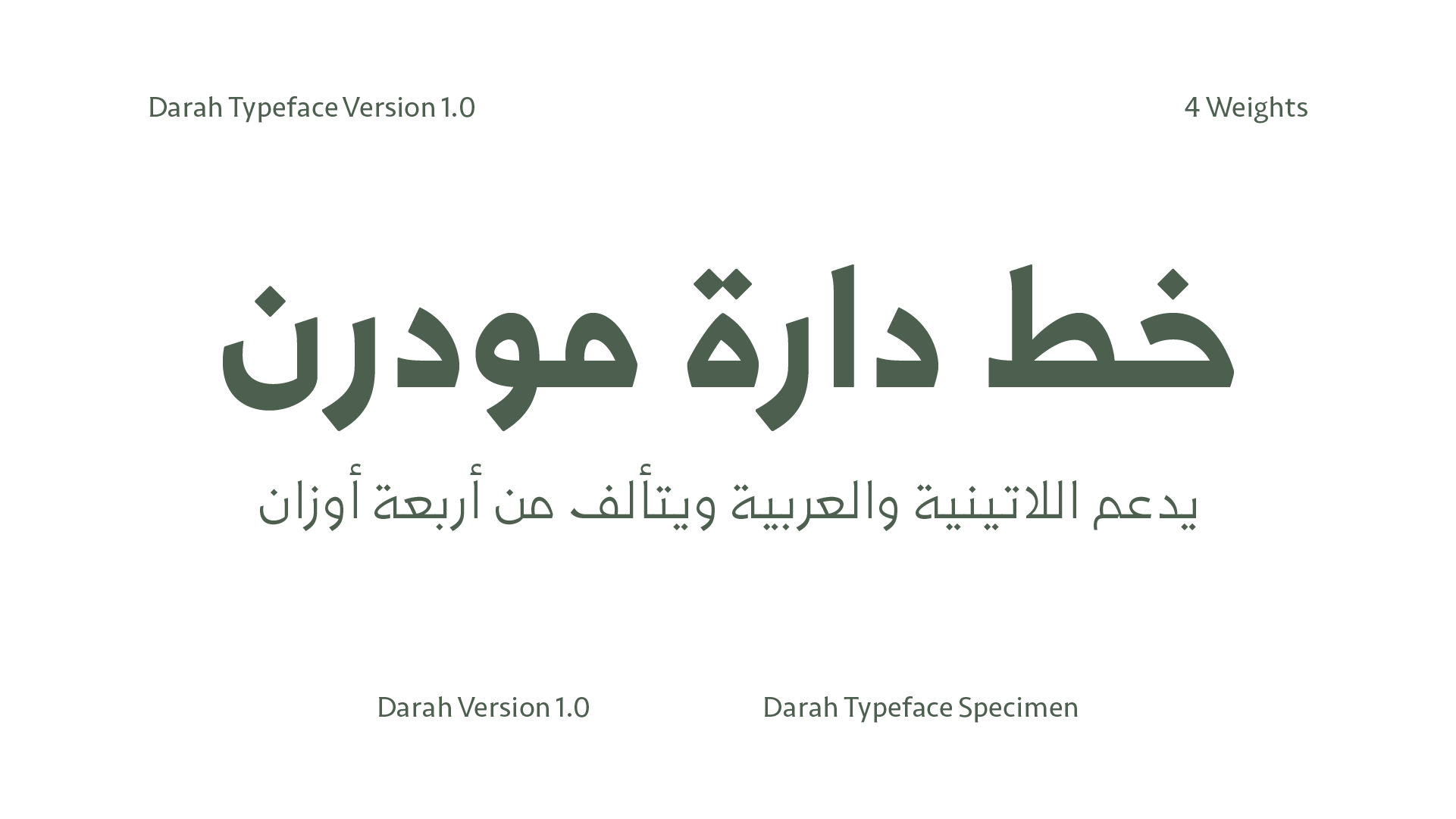
Ancient Hijazi scripts inspire the King Abdulaziz Darah Typeface. It balances solid and fluidity, making it one of the most distinctive Arabic typefaces, originally designed by Mr. Kameel Hawa. The letterforms reflect the spirit and vision of the Darah. However, the previous version of the typeface contained several issues, both in its drawing and technical programming.
The original version included three weights and supported Arabic only. Based on this, we restructured the entire font file and redrew the typeface from scratch. A light weight was added, and the font family was reorganized while resolving all engineering issues. We also enhanced the Arabic letterforms and corrected all prior design flaws.
Additionally, we designed basic Latin characters in four weights that align visually with their Arabic counterparts, along with Arabic numerals and punctuation marks.
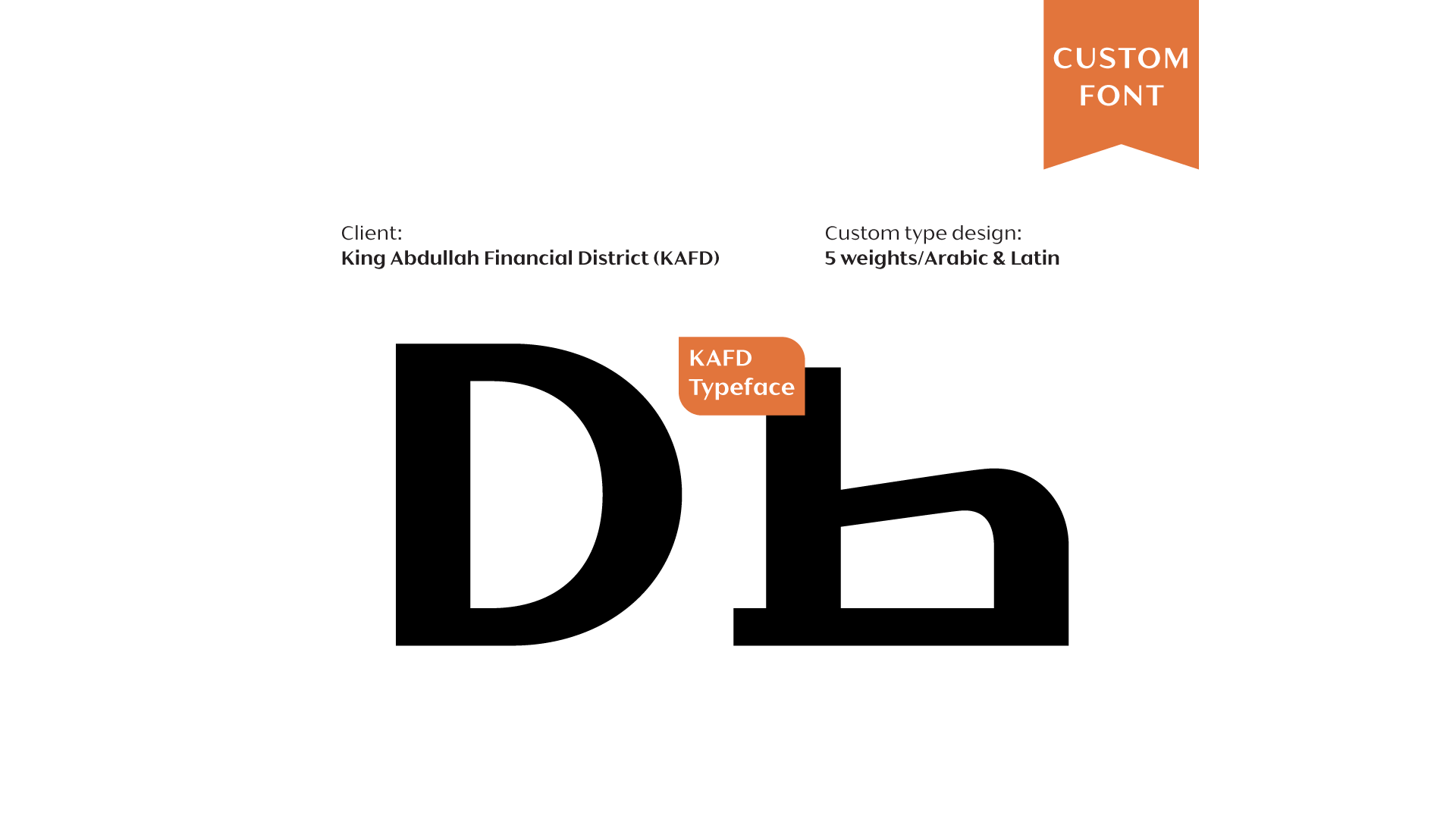
The KAFD font is a sans-serif typeface inspired by the Kufic style of its Arabic letterforms. It supports both Arabic and Latin languages and has five weights.
This typeface represents an innovative achievement that combines visual art and modern technology to serve the deaf community and enhance their ability to learn and understand the Holy Quran. Specifically designed to support the Arabic Sign Language alphabet, this typeface expresses its letters through simplified and clear hand movement illustrations. It has three different styles, making it versatile and easy to use in various educational and Quranic applications.
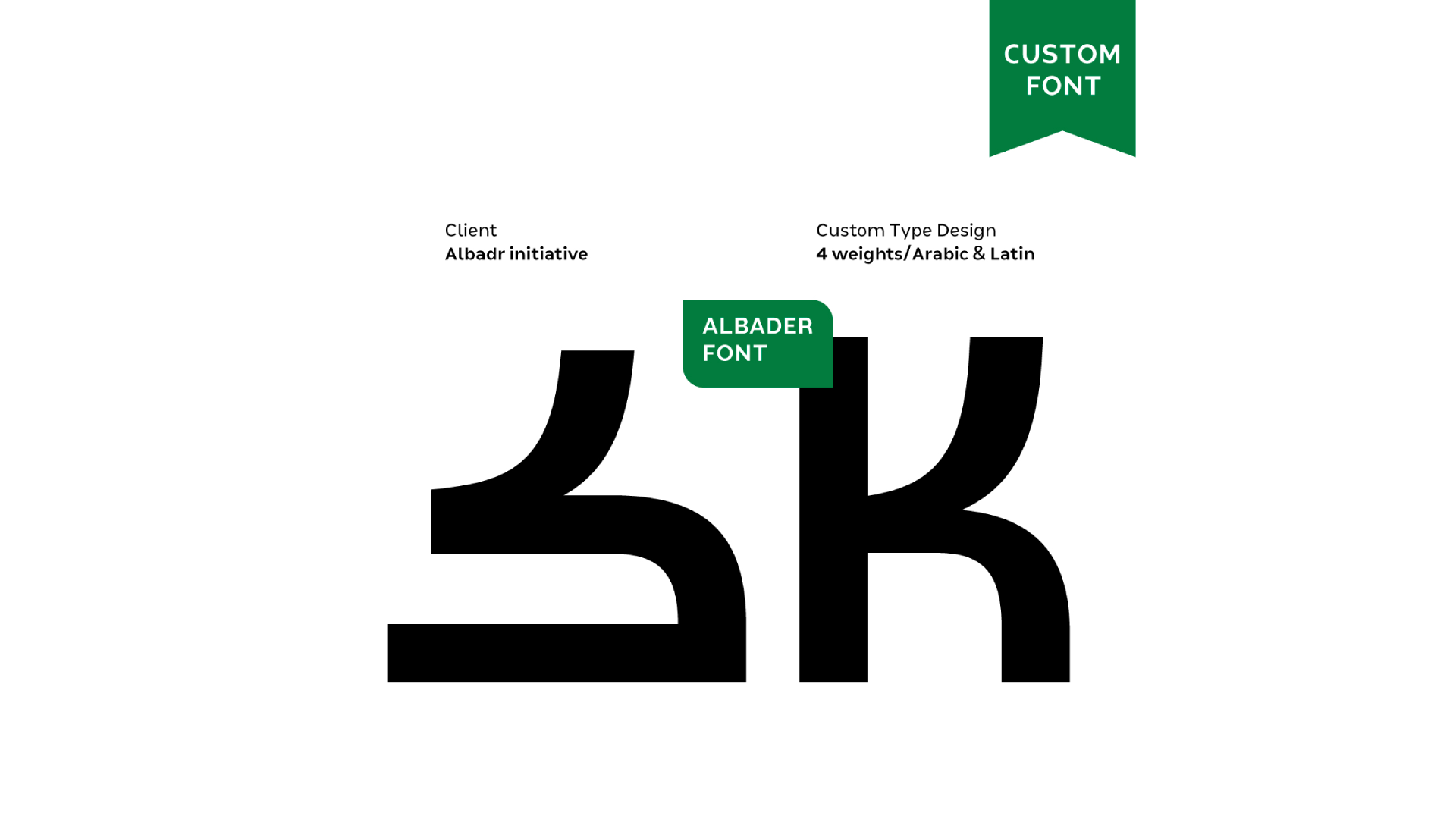
Introduction:
Based on the identified direction and future vision of the Albader Initiative, the Kufic style has been adopted as our main reference in constructing the Albader font due to its authenticity and aesthetic beauty, blending strength with softness. The Albader font is characterized by its simplicity of design and readability, which is one of the familiar styles for Arabic users. It stands out in its shape by combining several styles of Kufic fonts with some touches inspired by the flexible shapes of Naskh letters, designed to harmonize uniquely with the rest of the letters. The English letters are geometric and sans-serif, matching the thickness and shape of the Arabic letters. They were designed by matchmaking them with the forms of Arabic letters.
Weights and Supported Languages:
Albader font consists of 4 weights and supports Arabic and Latin languages.
Usages:
It suits headlines, body texts, social media, websites, and print materials.
Introduction:
King Salman Park Font targets a diverse age group ranging from children to youth and seniors. It will be used in various places including signboards, printed materials, and websites, among others. Therefore, our main focus in designing the font was to draw letters that are characterized by simplicity, readability, and familiarity to the reader. Thus, a hybrid font design was adopted, combining the characteristics of the Naskh script, which addresses human nature, with the modern Kufic script familiar to Arab users due to its prevalence in most visual designs as it is the dominant type in Arabic typefaces. The letter design combines the geometric solidity of Kufic with the fluidity of Naskh, along with special letter features employed from elements used in the logo.
Weights and Supported Languages:
King Salman Park Font consists of four weights and supports both Arabic and English languages.
Usages:
The font is used in headlines, texts, social media, websites, and printing.
Introduction:
The APN’s font deeply reflects the identity of the center, complementing the story that began with the design of a distinctive logo inspired by ancient Hijazi inscriptions. This font aims to have an impact beyond Arabic speakers, targeting a broader global audience. This step is seen as a continuation, connecting the foundation not only with the world of poetry but also with various other artistic dimensions.
The design of the Arabic Poetry Foundation’s font letters was inspired by ancient manuscripts written in the Mus’hafi and Mashreqi Kufic script with a touch of modernity. It is characterized by a strong personality and flexibility. This approach allows us to offer options that blend geometric harmony, distinctiveness, and simplicity.
Weights and languages:
APF font consists of six weights and supports the Arabic language.
Usages:
The font is used in headlines, body texts, social media, websites, and print materials.
Introduction:
A youth team specialized in the digital media field; BLLOR was founded to provide digital marketing services. With long years of diversified experience, we give you integrated and innovative solutions that suit your excellence. BLLOR is always your partner wherever you are and however you want.
Bllor font consists of 10 weights supporting both Arabic and Latin languages. Its Arabic letters are a blend of geometric Kufic letters and flexible Naskh letters.
Usage:
Vision Bank Font is used in headlines, texts, websites, social media posters, and printing.